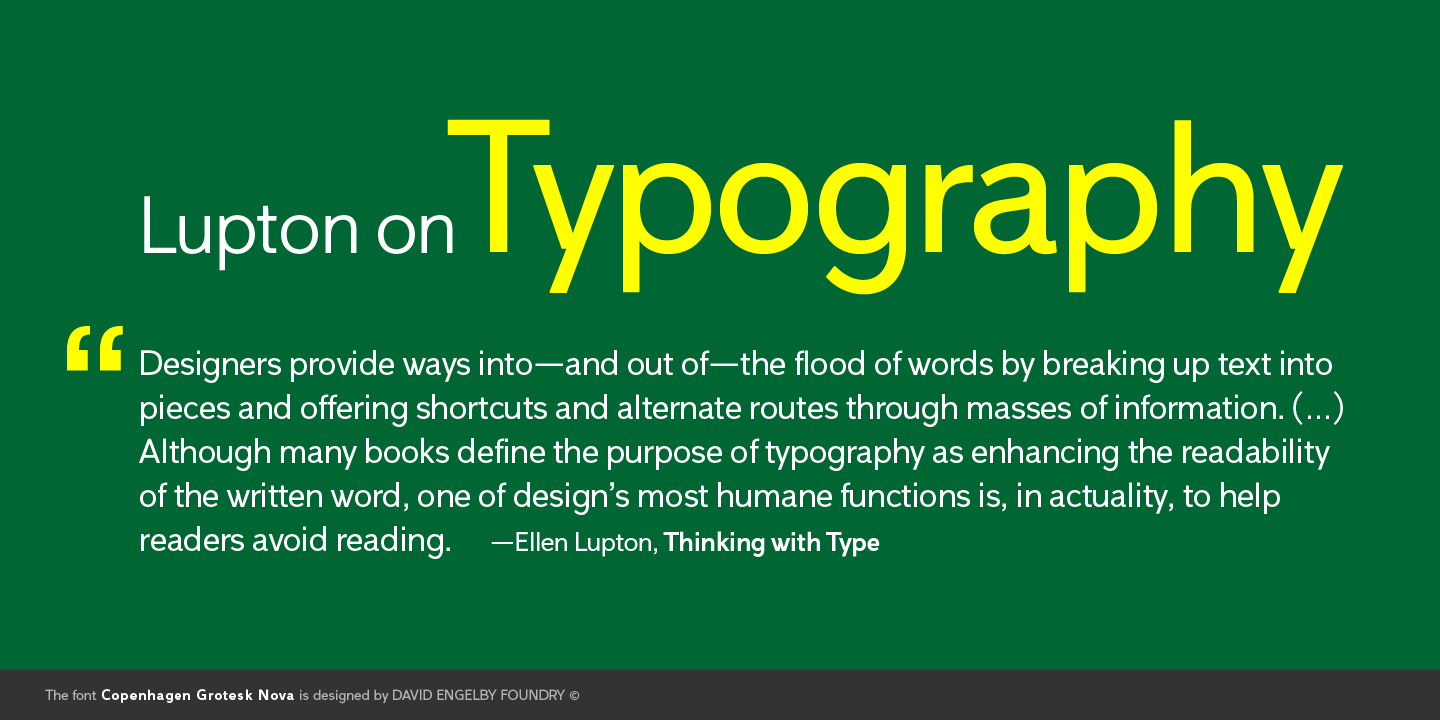
The Copenhagen Grotesk Nova Font excels in various design applications including modern Scandinavian branding, contemporary Danish design communications, Nordic architecture firm materials, minimalist lifestyle brand identities, Danish design museum signage, progressive startup marketing, clean technology promotions, modern Copenhagen tourism materials, Scandinavian furniture packaging, and sophisticated Nordic projects that demand Danish modernism and grotesk sophistication.
What makes the Copenhagen Grotesk Nova Font exciting is its perfect embodiment of Danish design philosophy and Scandinavian modernist principles through letterforms that capture the essence of Copenhagen's contemporary culture and the clean functionality that defines Nordic design excellence. This typeface demonstrates exceptional clarity through carefully engineered characters that suggest the minimalist aesthetics of Danish architecture, the progressive thinking of Scandinavian innovation, and the timeless functionality that makes Nordic design internationally celebrated. The font's modernist personality makes it perfect for design studios and Danish brands seeking to communicate Scandinavian authenticity, design excellence, and the kind of clean sophistication that represents genuine Copenhagen style through typography that literally embodies Nordic design principles.
The Copenhagen Grotesk Nova Font family typically includes comprehensive weight variations that enhance the Scandinavian aesthetic, featuring clean proportions and extended character sets supporting Nordic linguistic requirements and international design applications. These family options often include Danish alternates, Nordic symbols, and modernist decorative elements that provide designers with comprehensive tools for creating authentically Scandinavian typography that celebrates Danish design while maintaining contemporary appeal and international design credibility.
Design professionals and Scandinavian lifestyle brands consistently select Copenhagen Grotesk Nova Font Free Download for projects requiring typography that communicates Danish design authenticity and Nordic sophistication. This typeface delivers exceptional performance in design marketing, Scandinavian branding, and modernist communications where establishing credibility and demonstrating appreciation for Danish design principles is essential for international recognition. The font's grotesk character makes it particularly effective for architecture and technology applications. Download Copenhagen Grotesk Nova Font Free Download today to access this design-forward typeface that transforms Nordic communications with its Danish elegance and grotesk sophistication, creating compelling design experiences that honor the magnificent legacy of Copenhagen modernism while celebrating the clean functionality that defines authentic Scandinavian design excellence and Danish cultural innovation.